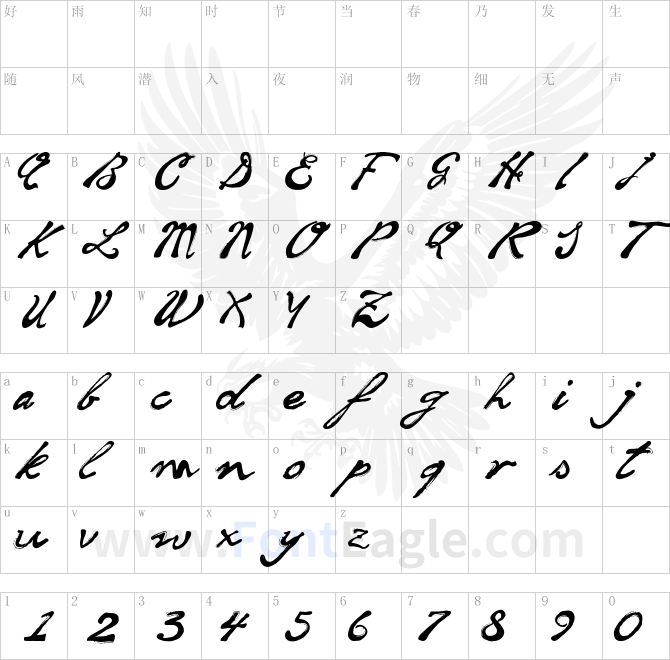
- Font name:soul handwriting_free-version
soul-handwriting_free-version is a great font, widely used in graphic design, single-page menu design, poster design and other fields, and is deeply loved by designers.soul-handwriting_free-version download.